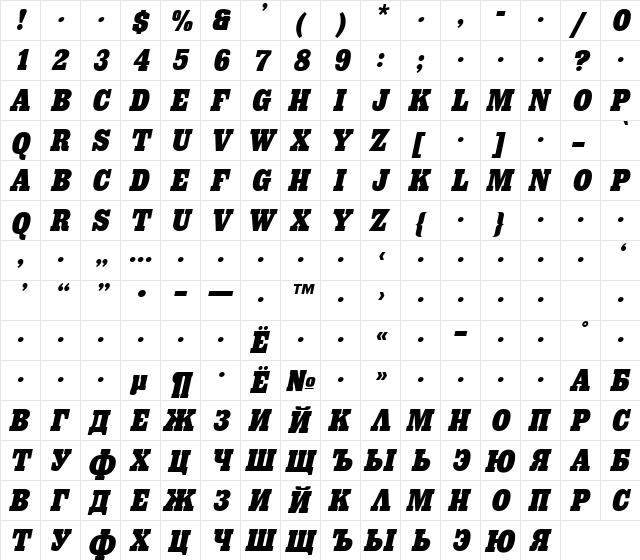
EgyptianCyr Bold Italic Font Preview
Design Context for EgyptianCyr Typeface
EgyptianCyr combines the readability of serif typography with the visual weight of a slab construction, resulting in a typeface that feels both authoritative and approachable. The dynamic lean of this cut emphasises speed and emphasis in any layout. The heavy weight commands attention and anchors typographic hierarchies.
Suited to magazines, political campaign materials, bold packaging, and any setting where authority matters.
Pro Tip: Use EgyptianCyr for headlines and subheadings where its slab serifs can make an impression. It also holds up well in mid-size body copy thanks to its sturdy construction.